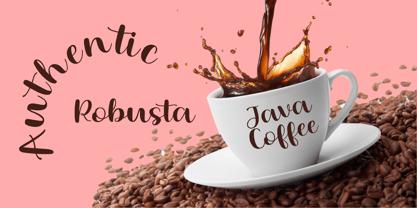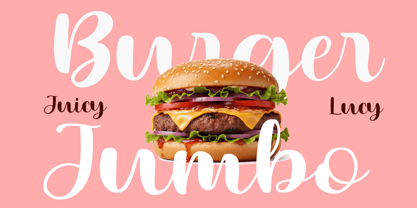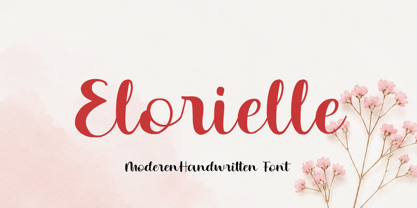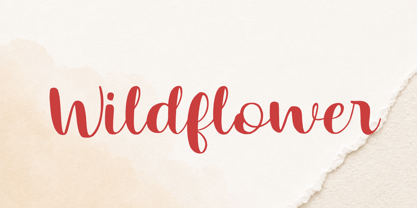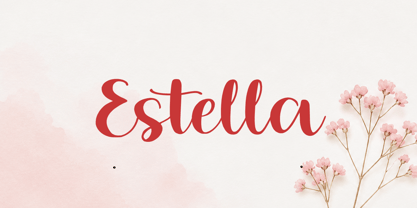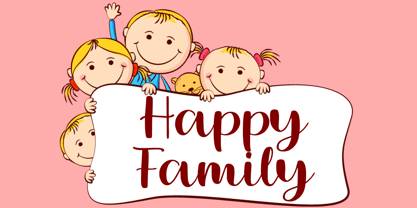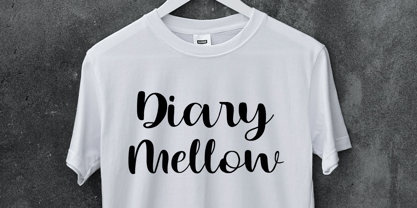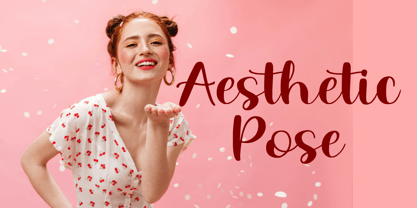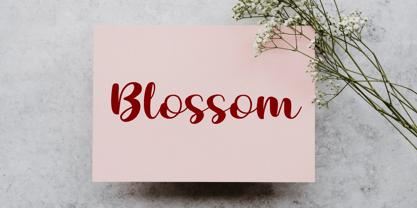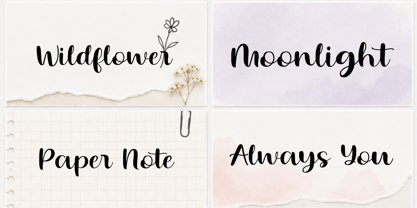
Elorielle
by Letternesia studio
The Elorielle Font Family was designed by Ta Siyo and published by Letternesia studio. Elorielle contains 1 styles. More about this family
Elorielle is a graceful handwritten script font that captures the beauty of natural handwriting with a soft, feminine touch. Its flowing strokes, elegant curves, and authentic letterforms create a warm and personal feel, making every design look stylish and heartfelt.